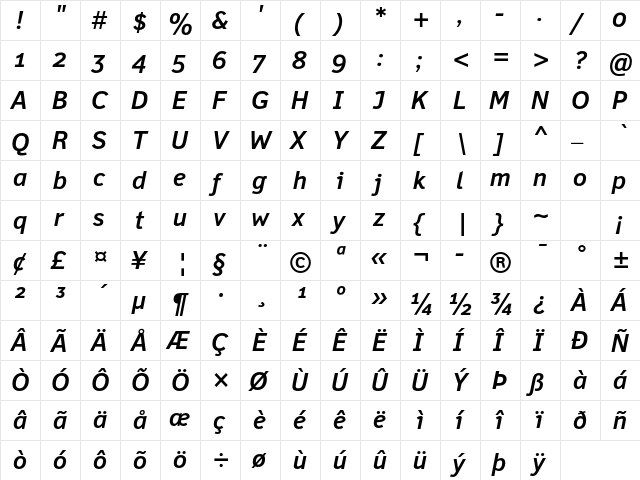
Felbridge Std Bold Italic
Design Context for Felbridge Std Typeface
Felbridge Std offers clean, dependable letterforms without strong stylistic allegiance, making it a practical choice for designers who need flexibility. The dynamic lean of this cut emphasises speed and emphasis in any layout. Its bold stroke weight gives it real presence on the page.
Pro Tip: Use Felbridge Std for emphasis, pull quotes, and subheadings where its slanted energy can add rhythm to the layout.